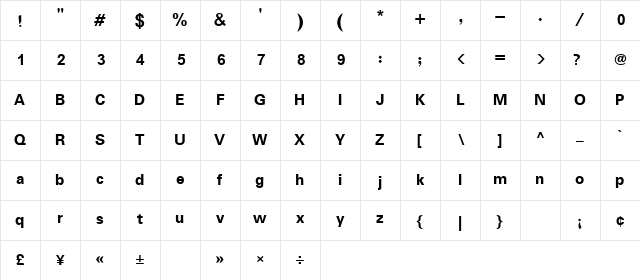
Nizar BBC Kurdish Bold
Foundry: nzardesign
Designer: Nizar K. Abdullah
Design Context for Nizar BBC Kurdish
Nizar BBC Kurdish is a composed and adaptable typeface that performs quietly and consistently across a wide range of design contexts. Its bold stroke weight gives it real presence on the page.
Who designed the Nizar BBC Kurdish Bold font?